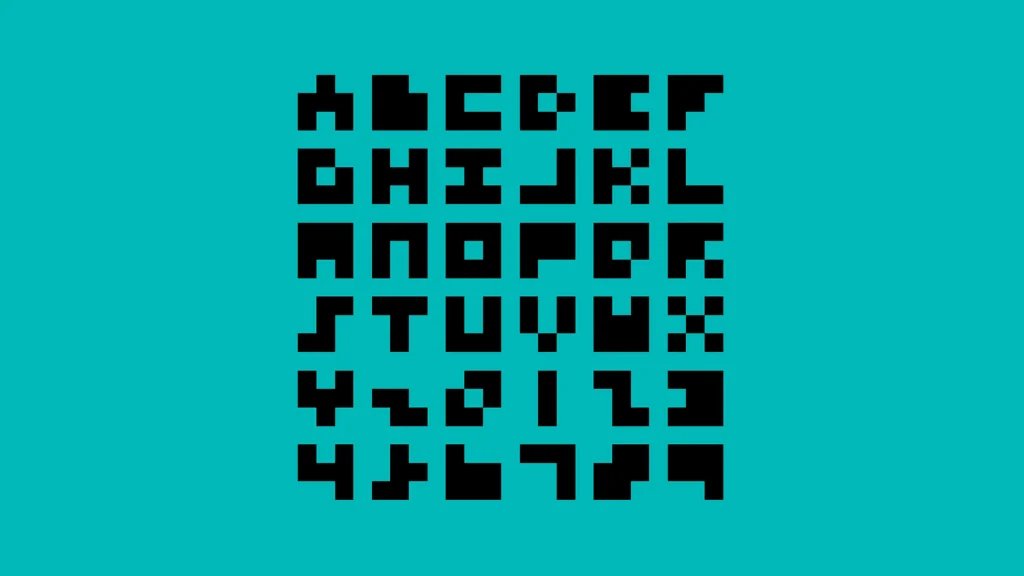
The 3×3-pixel Font is a free, open-source monospace typeface built on a three-by-three grid.
This font supports basic English letters, numbers, and common symbols. Its design focuses on absolute minimalism, reducing each character to its simplest recognizable form.
You can integrate this font into projects that require a stark, retro digital aesthetic.
Features
- Constructed on a strict 3×3 pixel grid.
- Includes uppercase and lowercase English letters.
- Contains numerals and essential punctuation.
- Monospaced, ensuring uniform character width.
Use Cases
- Create authentic pixel art and old-school video game interfaces.
- Design low-resolution display readouts for mockups.
- Add a minimalist, tech-inspired aesthetic to data tables and code snippets.
- Build sharp, grid-based typographic layouts for posters.